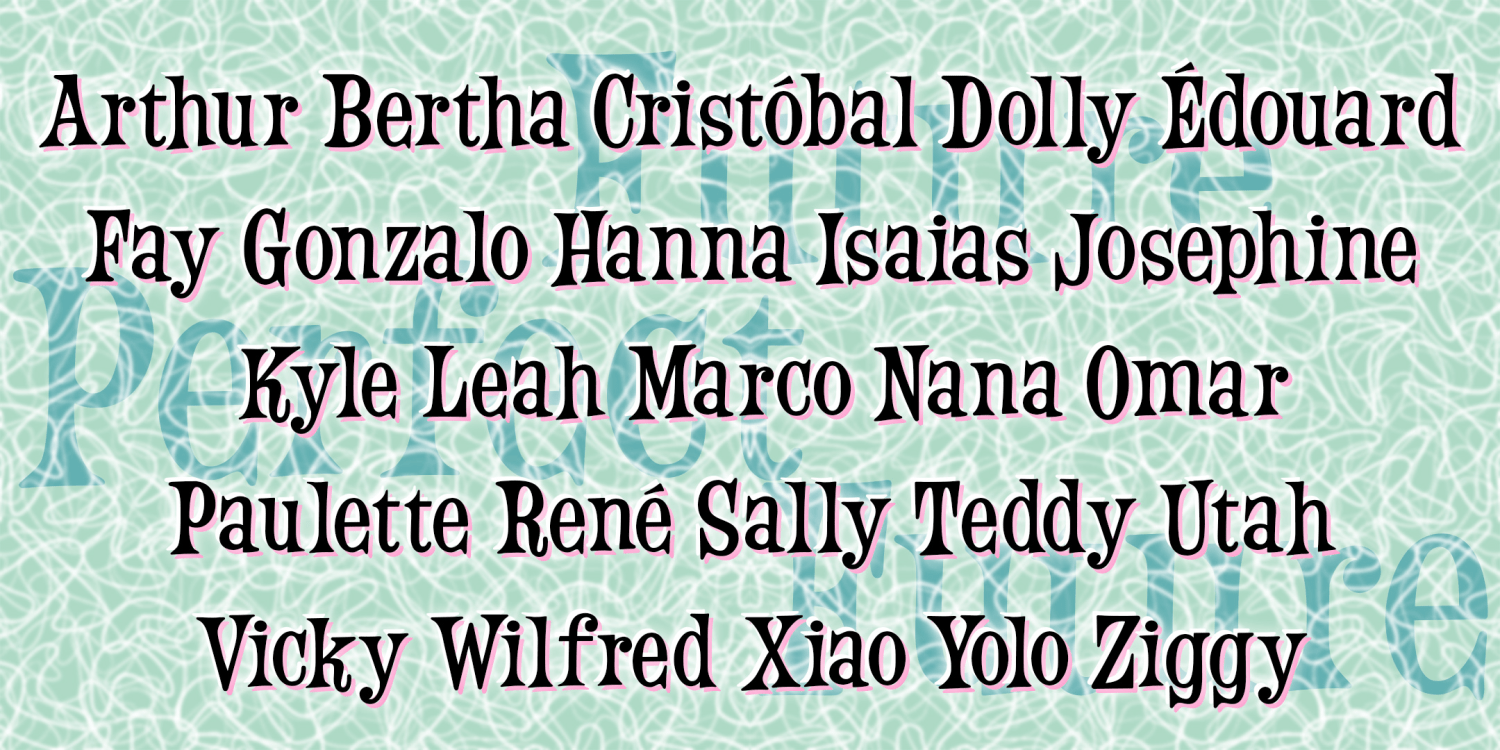
Future Perfect
Font Family by Harold's Fonts
Future Perfectis a fun and bouncy font. This bit of retro futurism was inspired by an analog font reproduced in a book. I was attracted to its relatively condensed form; so many similar display fonts are limited by their width. Future Perfect is a grammatical tense, but it makes me think of time of the Space Needle and The Jetsons when the future just seemed full of big bright possibilities.